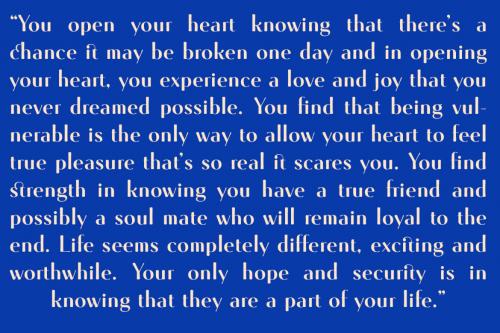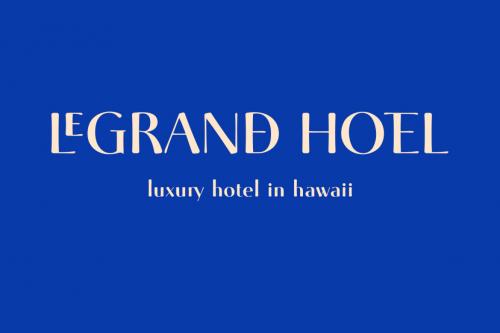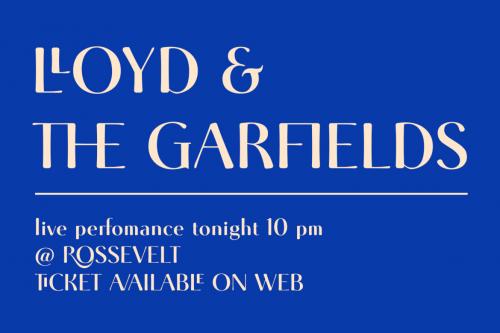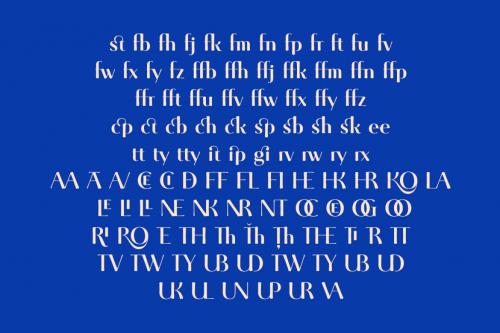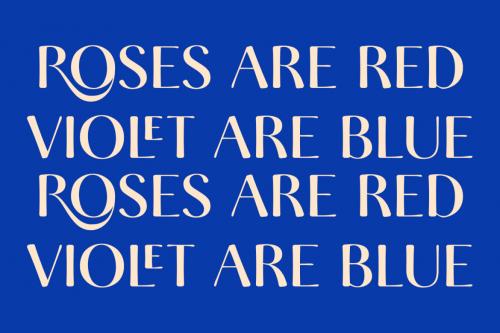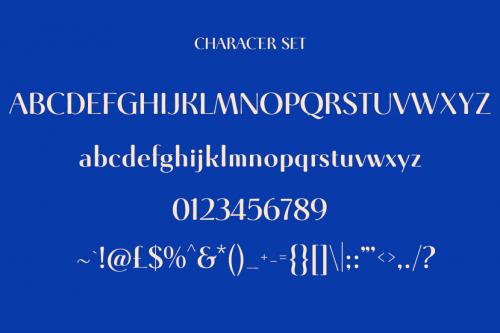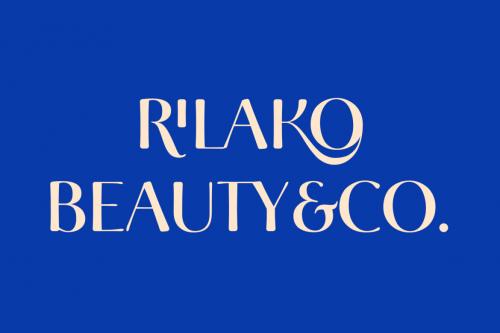
Mikola is a modern decorative serif font. With medium low contrast stroke, fun character with a bit of ligatures and alternates. To give you an extra creative work. Mikola font support multilingual more than 100+ language. This font is good for logo design, Social media, Movie Titles, Books Titles, a short text even a long text letter and good for your secondary text font with sans or script. Make a stunning work with Mikola font.